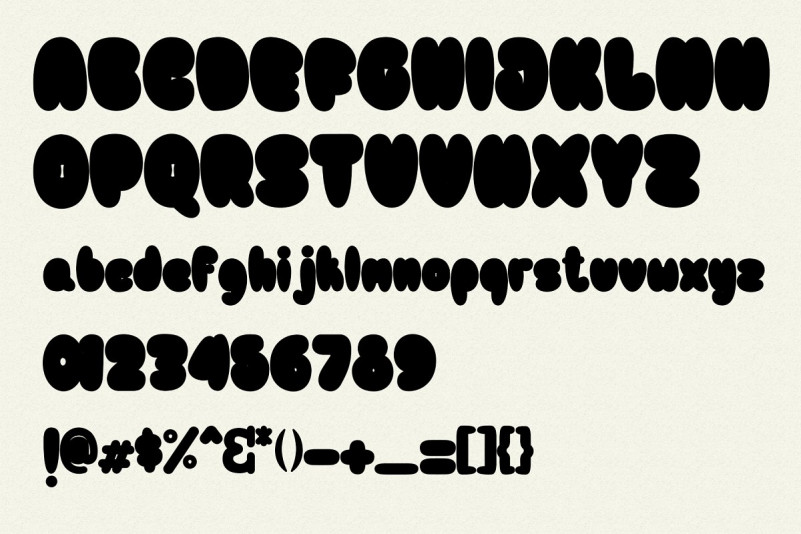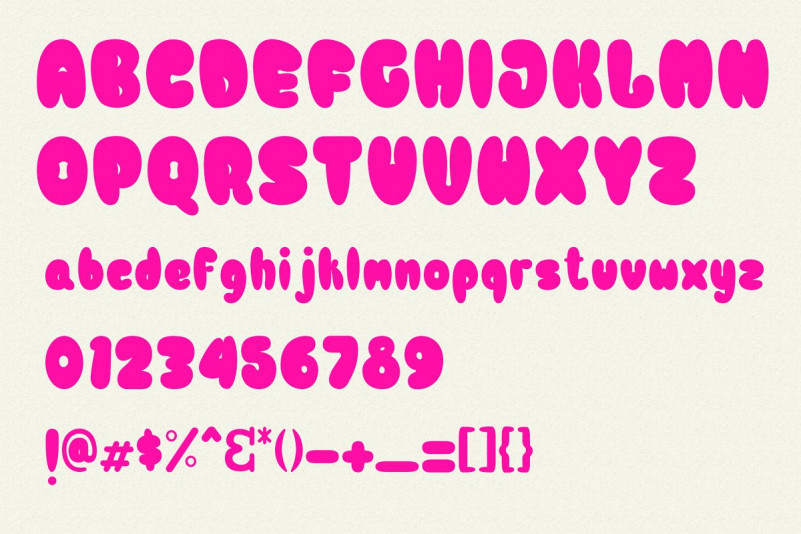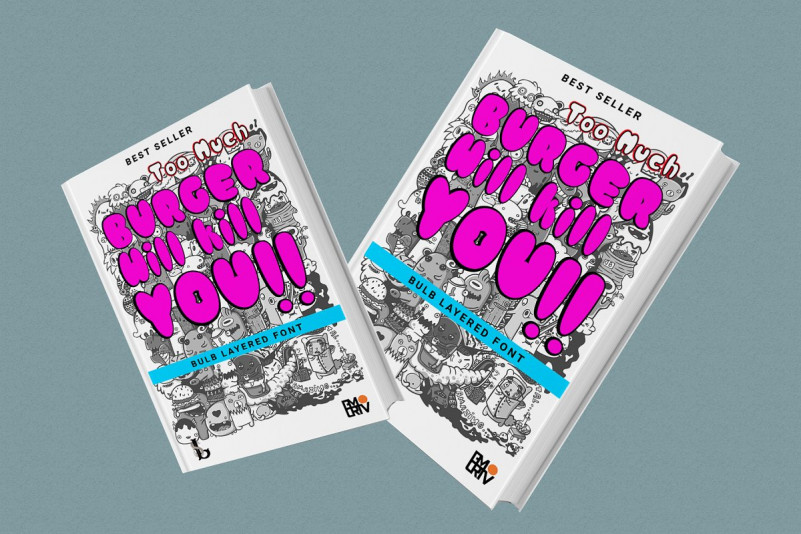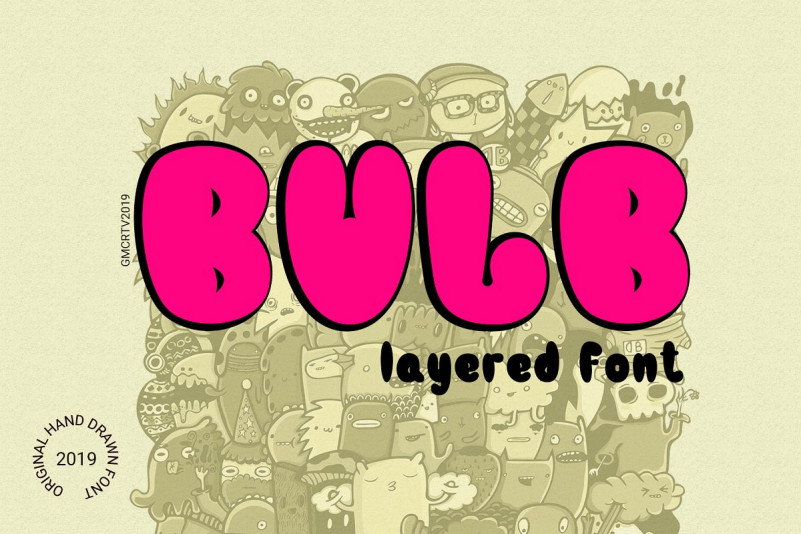
Bulb Typeface – Free Demo
Introducing Bulb Font. It is designed by LetterStock, this is a premium font, are sold on creativemarket, but it was great, it is free today for download. Bulb layered font is a sans font family Inspired by an old school child book cover design, i try to make it more decorative so it’s can useful for any purpose. it’s perfect for you to show your design or product in professional way. USE Bulb Layered font is works great in any branding, logos, magazines, films, poster, flyer, sign board, tees design,etc